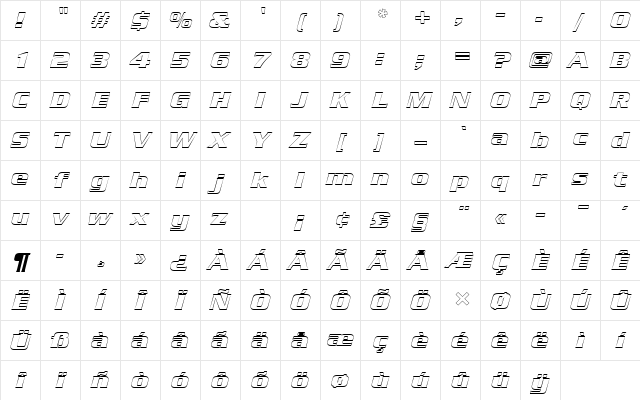
SerpentineDBolItaOu1 Regular
Design Context for SerpentineDBolItaOu1
SerpentineDBolItaOu1 is a composed and adaptable typeface that performs quietly and consistently across a wide range of design contexts.